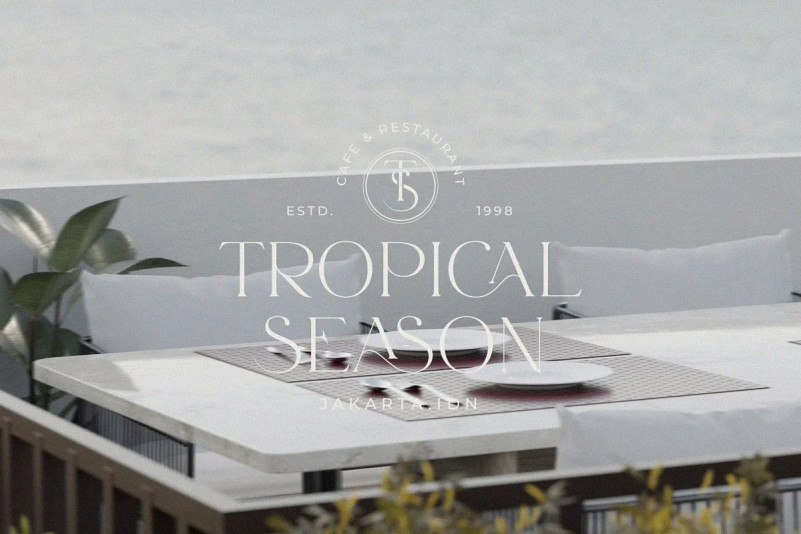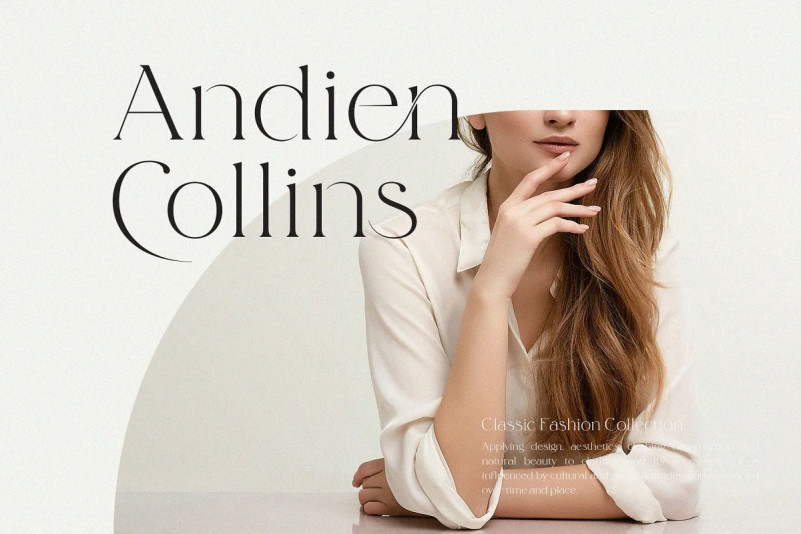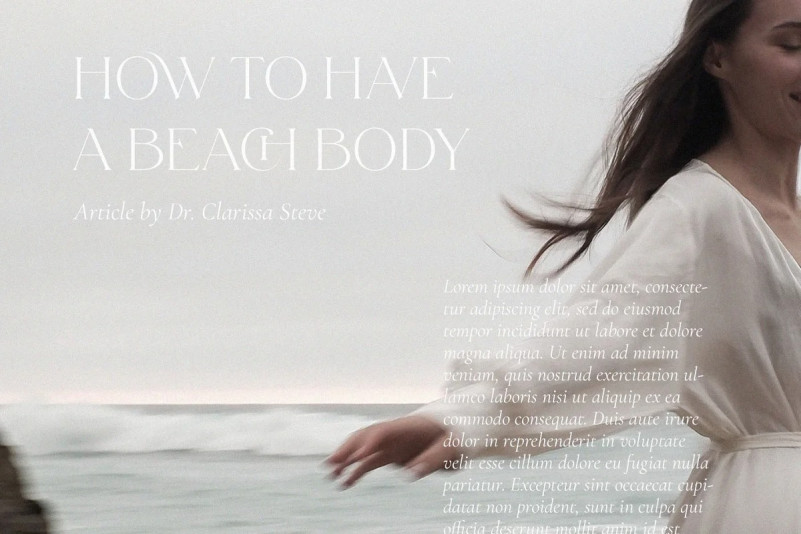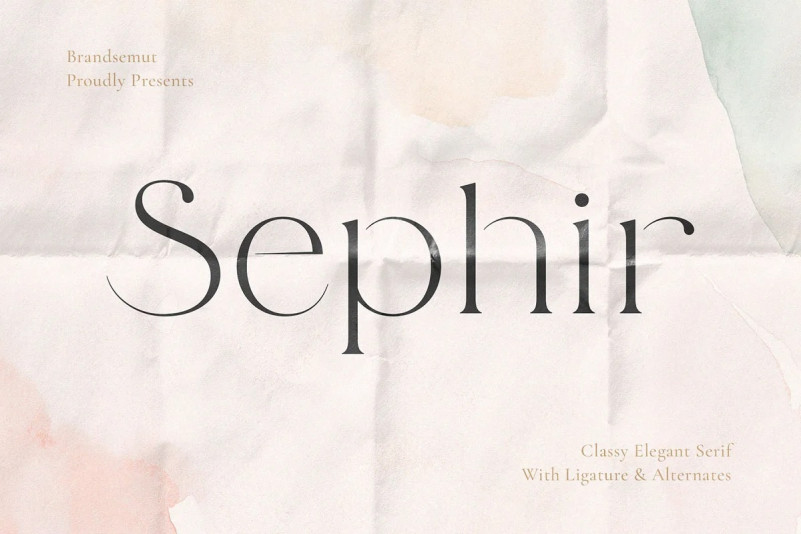
Sephir Font
Sephir Serif Font is aesthetic and modern display serif typeface created by BrandSemut with alternatives and ligatures. Sephiris a modern, elegant and classy serif font, best used as a display for headings, logos, branding, magazines, product packaging and invitations. Sephir come with clean lines and smooth curves give any project an extra touch of class.